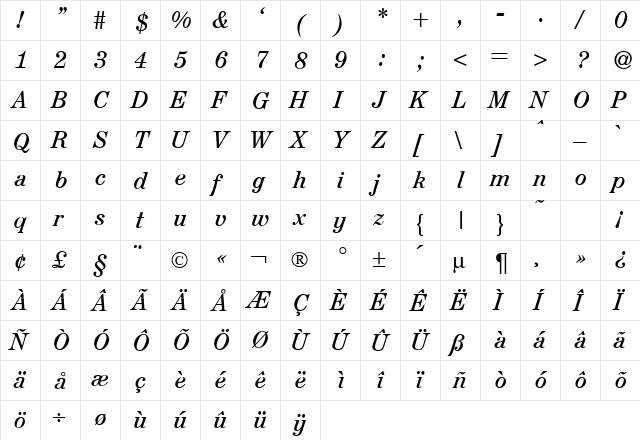
AugustDB Italic
Design Context for AugustDB Typeface
AugustDB takes a measured approach to typography — its balanced proportions and neutral character make it a reliable workhorse for both digital and print work. Its italic angle brings a sense of urgency and motion to the letterforms.
Pro Tip: Try AugustDB for annotation and caption copy alongside an upright companion — the contrast in angle creates a dynamic but ordered typographic system.